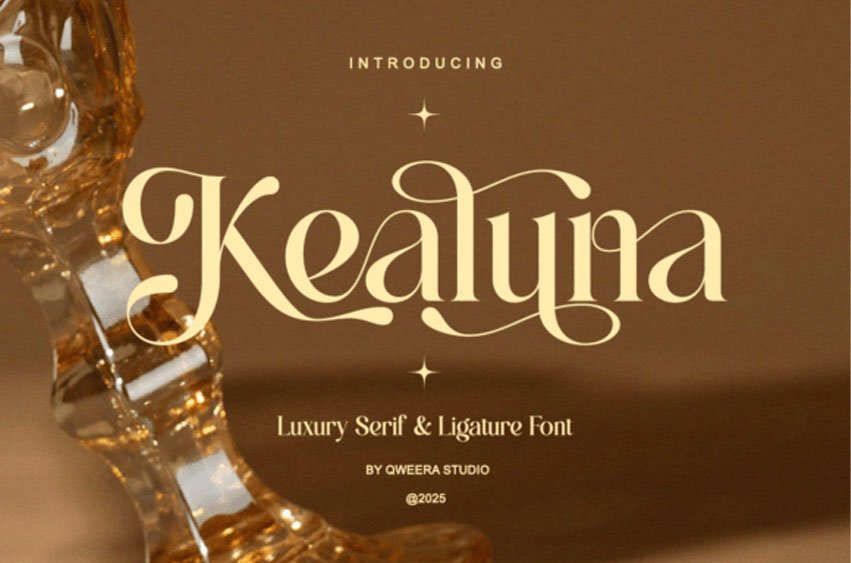
Kealuna Font Step into the world of luxury with the Kealuna font, a stunning serif and ligature typeface that redefines modern glamour.
This Kealuna typeface is a masterclass in elegant curves, featuring intricate ligatures that weave characters together into a seamless visual tapestry. The Kealyna font is perfect for high-end boutique branding, organic skincare labels, and sophisticated lifestyle content.
By using the Kealuna typeface, you give your brand a voice that is both trendy and deeply rooted in classical beauty, ensuring a “luxury” feel that resonates with a discerning audience.
Creative Usage & Decoration:
Ligature Play: Take advantage of the custom character connections to create unique, interlocking brand marks.
Soft Palettes: Use with “nude,” “champagne,” or “sage green” backgrounds for an organic, high-end spa aesthetic.
Editorial Spacing: Increase the tracking slightly on sub-headlines to create a breathable, high-fashion layout.